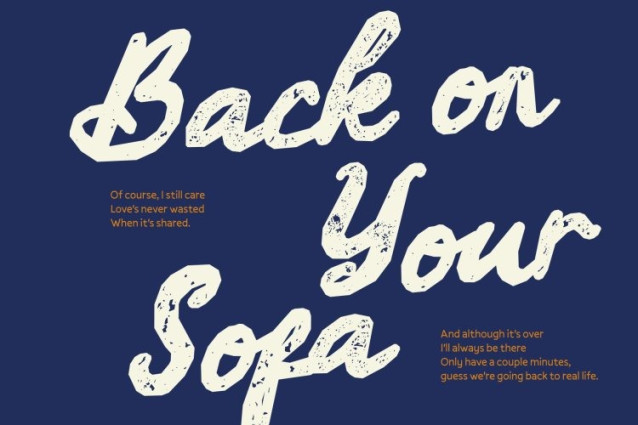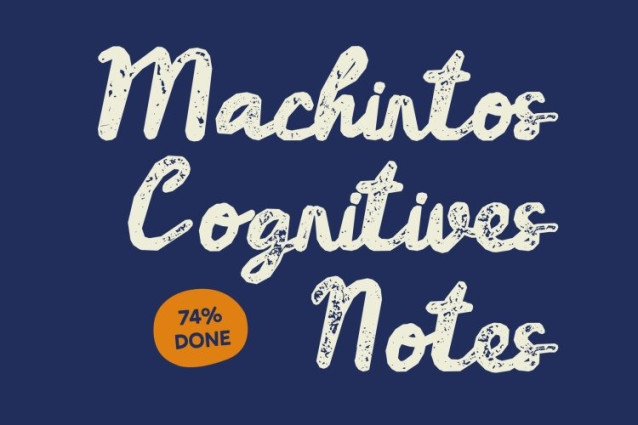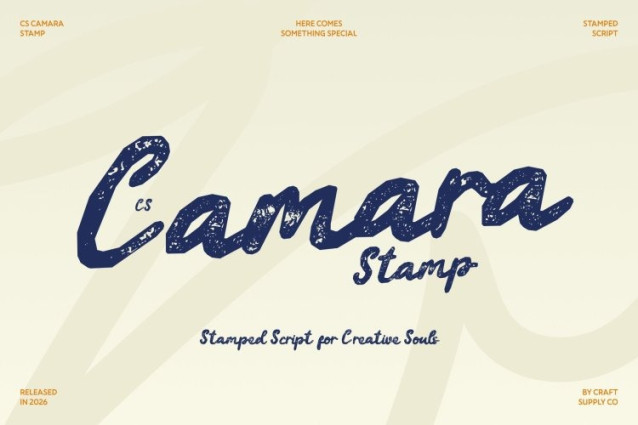
CS Camara Stamp Font
CS Camara Stamp Font is a handwritten script font that captures the natural elegance of flowing handwriting. Its smooth curves and graceful connections create a sense of movement and harmony, giving every word a personal and expressive touch. The fluid strokes evoke the beauty of handcrafted lettering, making the font feel warm, stylish, and naturally sophisticated.
Artistic Stamp Effect with Refined Details
Enhanced with a distinctive stamp effect, this font features subtle distressed textures and ink-like imperfections that add vintage character and artistic depth. The slightly irregular edges and textured strokes mimic the look of stamped or printed ink, giving the script a tactile and authentic appearance while preserving its graceful flow.
Sophisticated Style for Elegant Visuals
The elegant rhythm of the letterforms combined with the artistic texture creates a refined yet expressive aesthetic. This font balances softness and character, making it suitable for designs that require both beauty and personality. Its flowing structure maintains readability while adding decorative charm to every composition.
Perfect for Luxury and Expressive Branding
This is ideal for luxury branding, invitations, packaging, editorial titles, and creative visual identities. The combination of handwritten elegance and vintage stamp texture adds a unique and memorable touch, allowing designers to create visuals that feel artistic, sophisticated, and full of character.